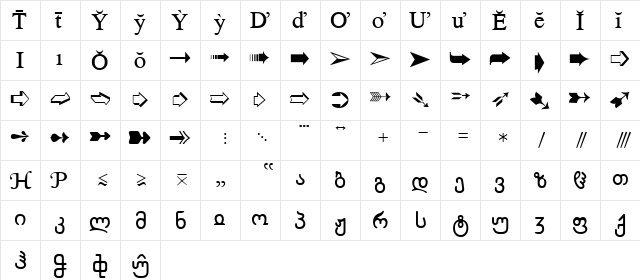
WP OverflowSet Normal
Design Context for WP OverflowSet Typeface
WP OverflowSet offers clean, dependable letterforms without strong stylistic allegiance, making it a practical choice for designers who need flexibility.